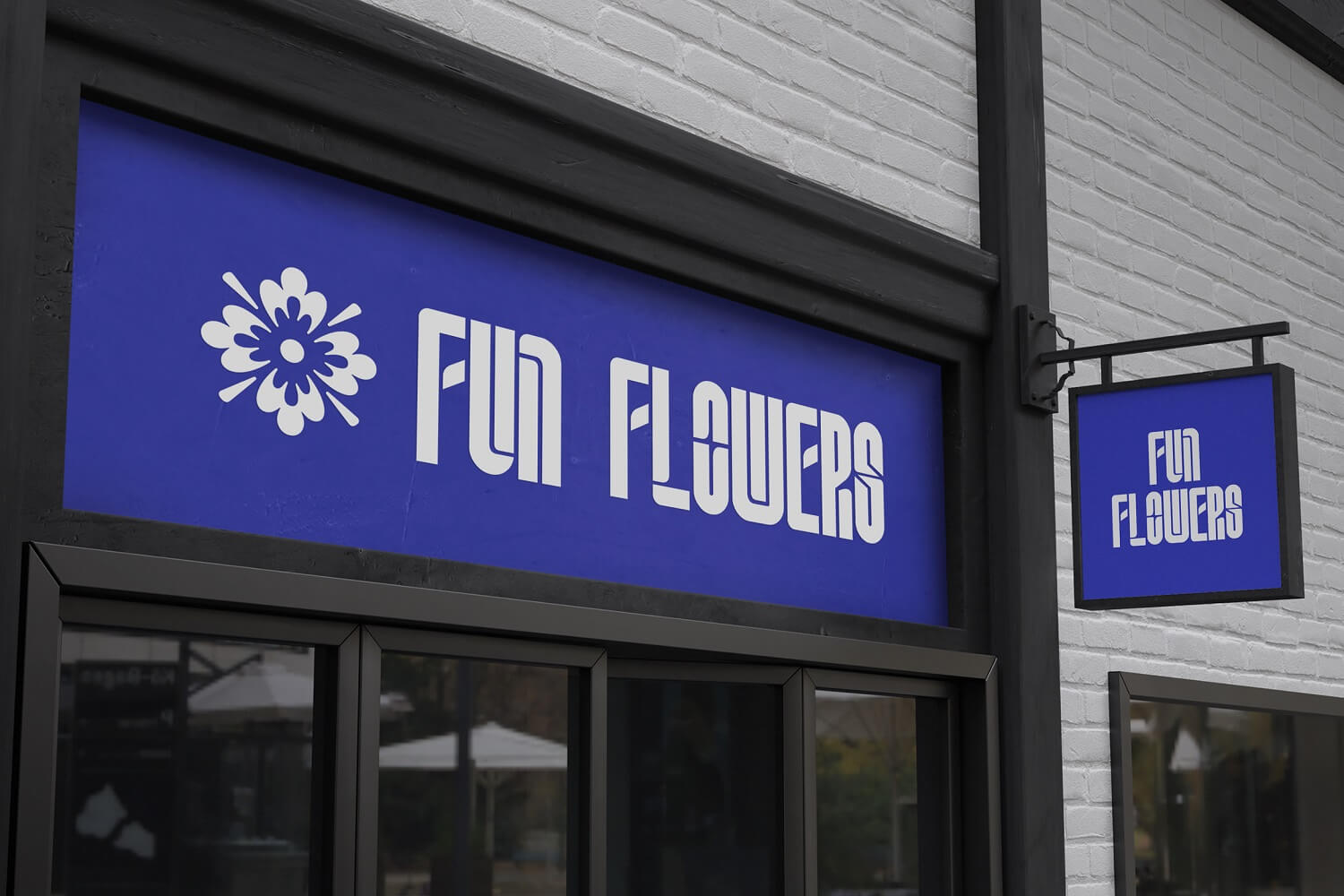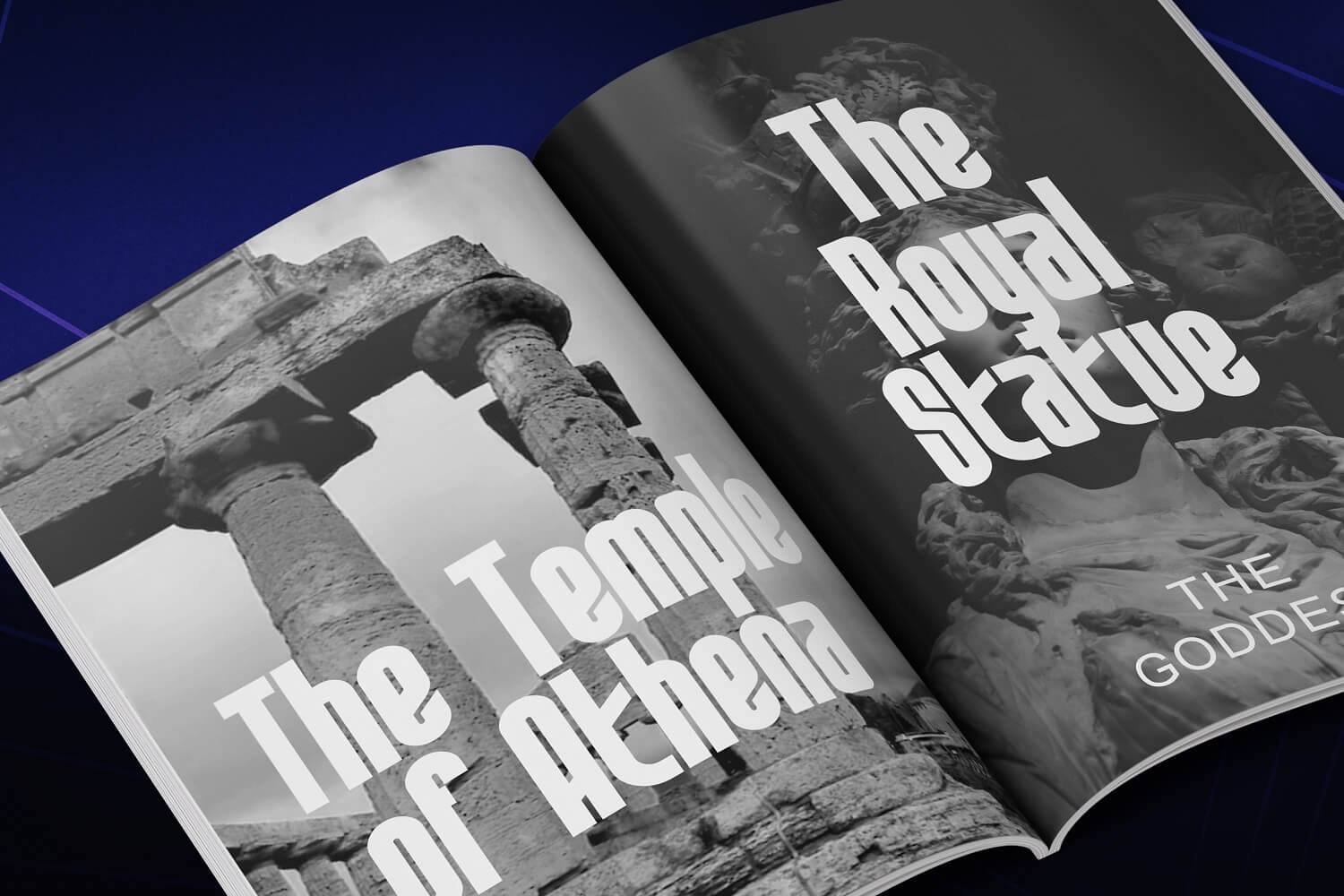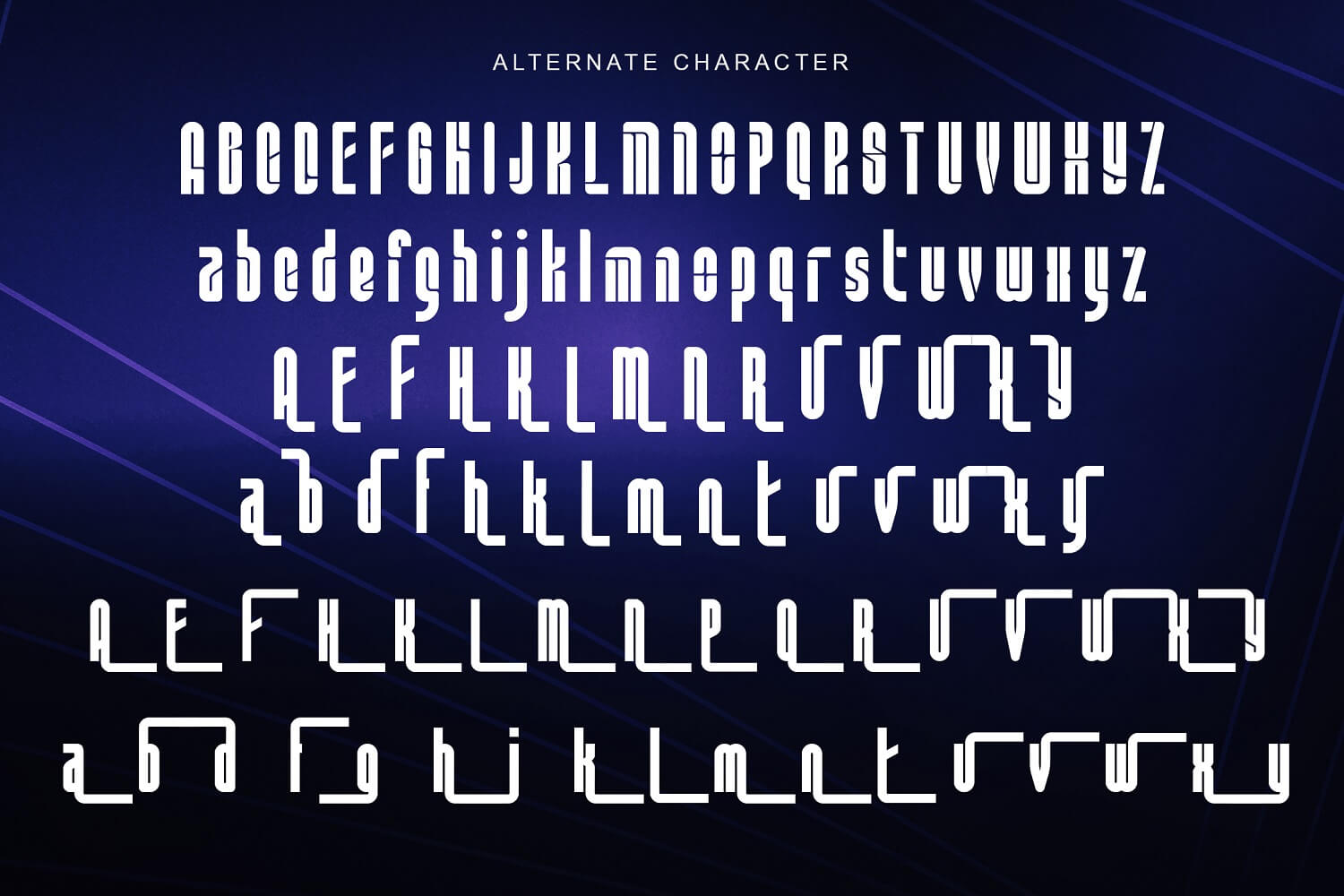
Asteroid Font is a modern futuristic sans serif font with a bold feel. It will add a contemporary update to any design project. On top of everything, it has a techno feel to it, making it ideal for titles, subtitles and logos.